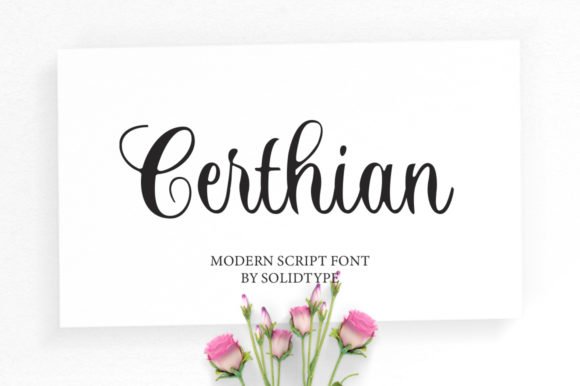
Discover the Magic of Certhian Font
Have you ever found yourself scribbling notes in a coffee shop, surrounded by the hum of creativity? That’s exactly where inspiration struck for the designers who crafted the enchanting Certhian Font. This modern and elegant handwritten font has captured the hearts of many with its unique, rounded letters that dance across the page.
Whether you’re a seasoned designer or a newcomer to the world of typography, the Certhian Font is an invaluable addition to your toolkit. Its versatility makes it perfect for a wide range of projects, from elegant invitations to whimsical illustrations. With its distinctive style, you’ll be able to bring your designs to life in a way that’s truly unforgettable.
Certhian Font Key Features
- Unique Characteristics: Features a unique blend of modern and traditional elements, with a distinctive ‘certhian’ flair, characterized by intricate details and subtle nuances in letterform design
Certhian Font Review
I’ve had the chance to work with Certhian Font, and I must say it’s a mixed bag. ✨ On the plus side, the font’s unique blend of modern and vintage elements makes it perfect for projects that require a touch of sophistication. The letterforms are clean and well-proportioned, making it easy to read even in smaller sizes.
One of the standout features of Certhian Font is its extensive language support. ✨ It includes a wide range of languages, making it an excellent choice for international projects. Additionally, the font’s OpenType features allow for a high degree of customization, making it a great option for designers who like to experiment.
While Certhian Font has many strengths, there are a few areas where it falls short. ⚠️ One of the main limitations is its limited italic and bold styles. While it’s not a deal-breaker, it’s something to consider if you’re planning to use the font for a project that requires a lot of emphasis.
Overall, I’d say Certhian Font is a solid choice for designers who are looking for a unique and versatile font. While it may not be perfect, its strengths far outweigh its weaknesses. If you’re looking for a font that can add a touch of elegance to your projects, Certhian Font is definitely worth considering.
- ✨ Unique blend of modern and vintage elements
- ✨ Clean and well-proportioned letterforms
- ✨ Extensive language support
- ✨ OpenType features for customization
- ⚠️ Limited italic and bold styles
For best results, use the Certhian Font in designs that require a unique, elegant, and professional look. It is ideal for headings, titles, and body text in corporate branding, wedding invitations, and creative projects. Experiment with different font sizes, colors, and styles to achieve the desired effect.
Alternatives to Certhian Font
Playfair Display is an elegant and luxurious script font, perfect for use in high-end branding, advertising, and editorial designs. It features intricate details and flourishes, making it ideal for adding a touch of sophistication to your designs.
Comparison to Certhian Font: While Certhian Font has a similar luxurious feel, Playfair Display is more ornate and features a more traditional script style. Use Playfair Display when you need a font that exudes refinement and elegance.
Carolyna Pro is a modern and stylish script font, great for use in fashion, beauty, and lifestyle branding. It features a more streamlined and simplified design compared to Certhian Font, making it perfect for creating a clean and minimalist look.
Comparison to Certhian Font: Carolyna Pro has a more contemporary feel and is better suited for modern and trendy designs. Use Carolyna Pro when you need a font that is both stylish and easy to read.